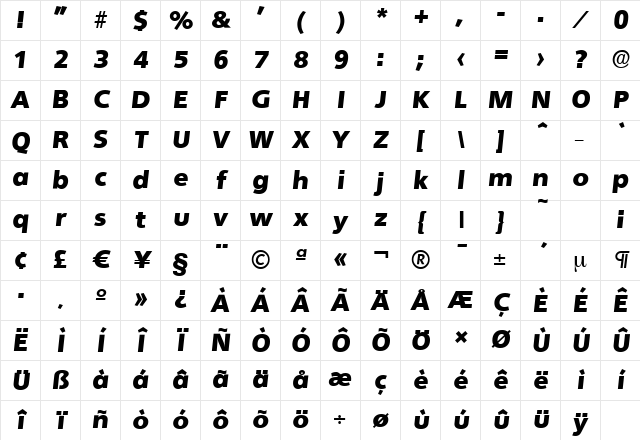
QuebecSerial-Black Italic
Complete QuebecSerial-Black Italic glyph index. Displaying only characters natively supported by QuebecSerial-Black Italic font.
Design Context for QuebecSerial-Black
QuebecSerial-Black is a composed and adaptable typeface that performs quietly and consistently across a wide range of design contexts. The slanted form adds forward momentum and visual energy.
Pro Tip: Use QuebecSerial-Black for emphasis, pull quotes, and subheadings where its slanted energy can add rhythm to the layout.